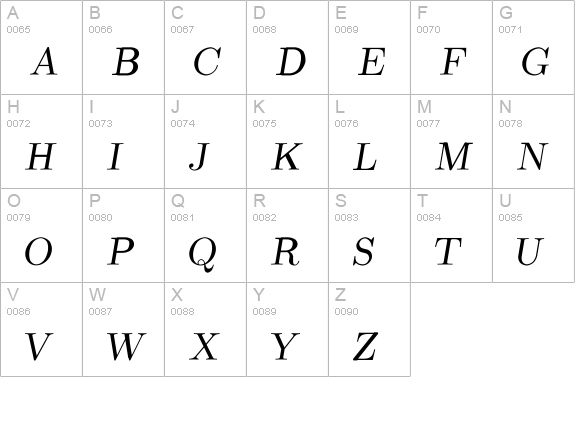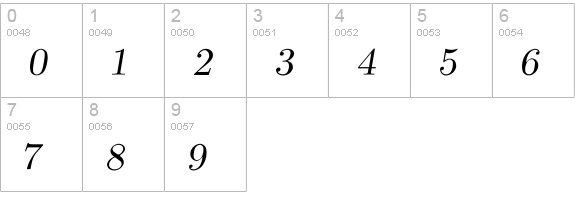
CM_Roman Slanted Font Details
Introducing CM_Roman Slanted font - a timeless and elegant typeface that exudes sophistication and charm. With its graceful slant and classic Roman styling, this font is perfect for adding a touch of refinement to any design project. The clean lines and balanced letterforms make CM_Roman Slanted an ideal choice for a wide range of applications, from branding to editorial design. What's even better is that CM_Roman Slanted font is available for free download at FontsMarket.com. This means you can easily access this beautiful font and incorporate it into your projects without any cost. Whether you're working on a logo, website, or print material, CM_Roman Slanted font will bring a touch of elegance and professionalism to your design work. Don't miss out on the opportunity to enhance your projects with the timeless beauty of CM_Roman Slanted font. Download it for free now at FontsMarket.com and elevate your designs to the next level.